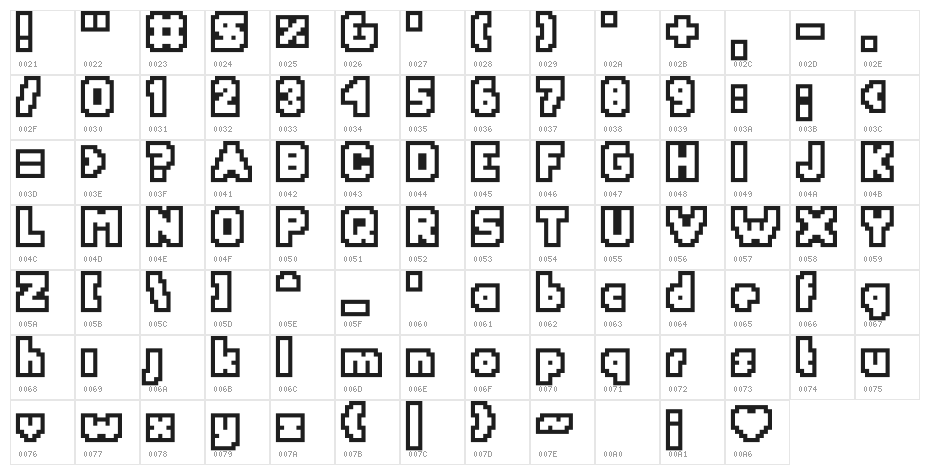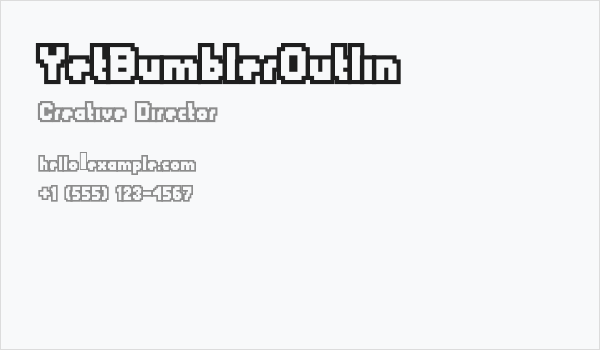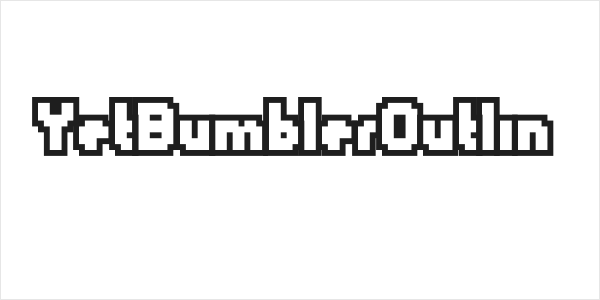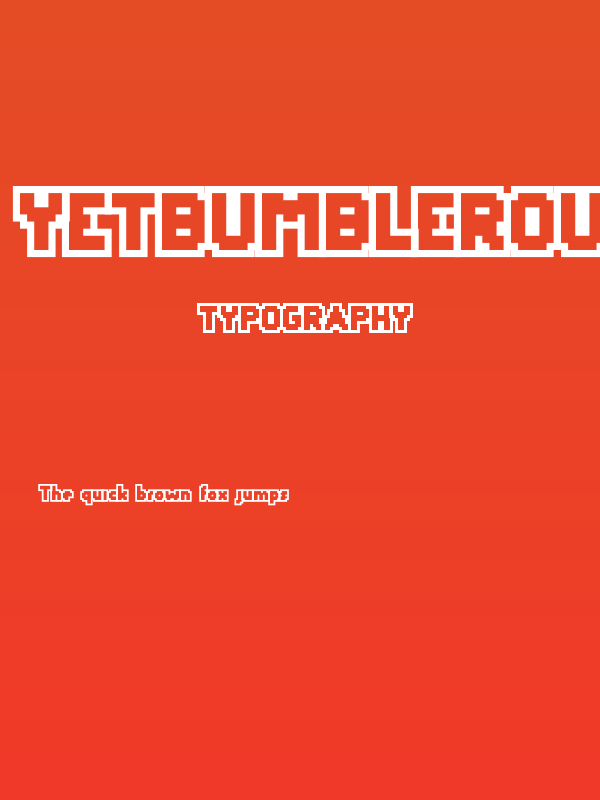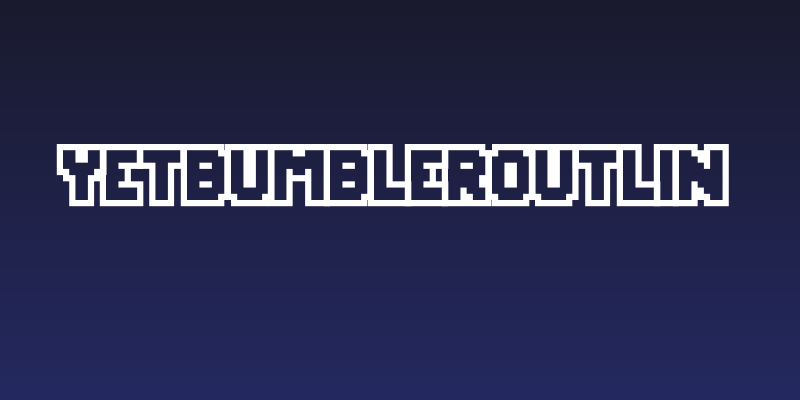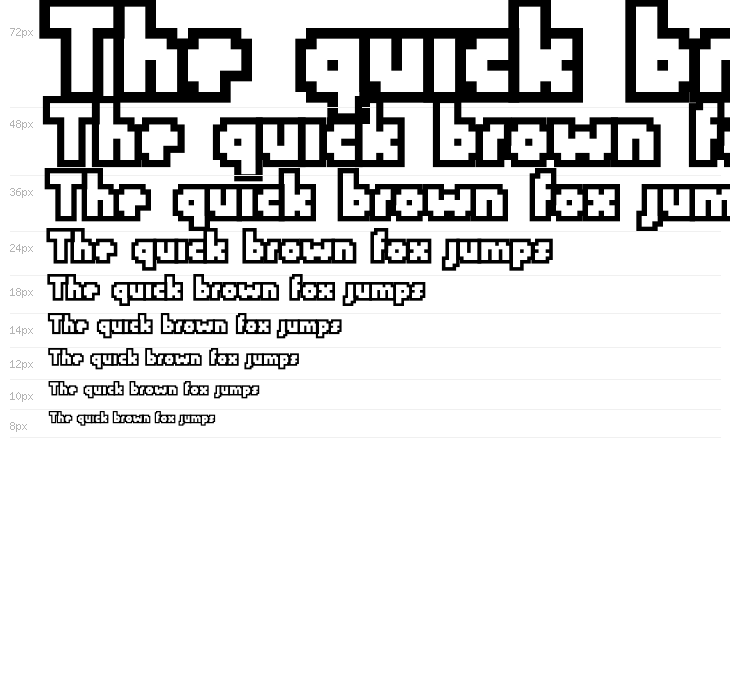
YetBumblerOutlin Font
YetBumblerOutlin Description
This font features a bold, blocky design with a distinct outline that gives it a three-dimensional appearance. The characters are uniformly structured with sharp, angular edges, creating a pixelated, retro aesthetic reminiscent of early digital or arcade game typography. The uppercase and lowercase letters maintain a consistent height, contributing to a cohesive visual impact. Numbers and special characters follow the same stylistic approach, ensuring uniformity across all glyphs. The font's playful and eye-catching style makes it suitable for projects that aim to evoke nostalgia or a sense of fun.
| Overall Style | Retro, Playful |
| Proposed Projects | Ideal for video game graphics, retro-themed posters, digital art, and playful branding. |